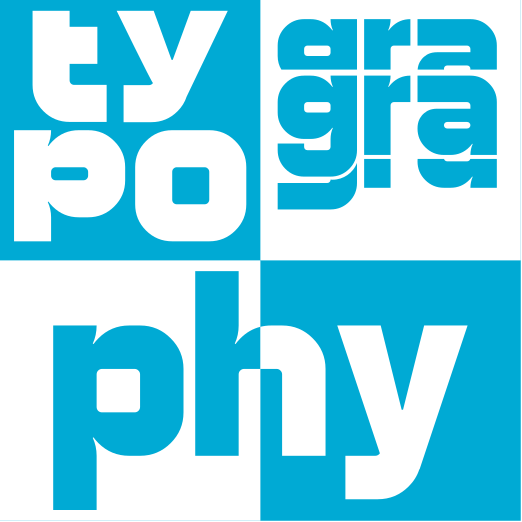
• --nebu steel AG--
an geometric steel font made by using 2x2 filters.
This font is cool! 10/10
It reminds me of ITC Bolt.
This font is very impressive! 10/10.
This looks like it would fit in a Sonic game